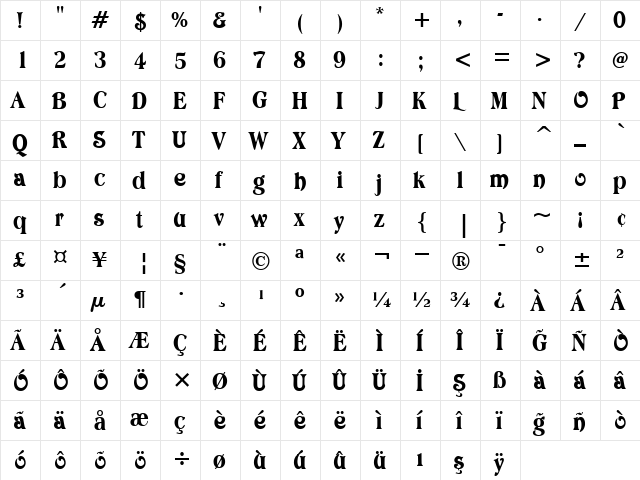
TR Avatar Regular
Design Context for TR Avatar Typeface
TR Avatar is a composed and adaptable typeface that performs quietly and consistently across a wide range of design contexts.